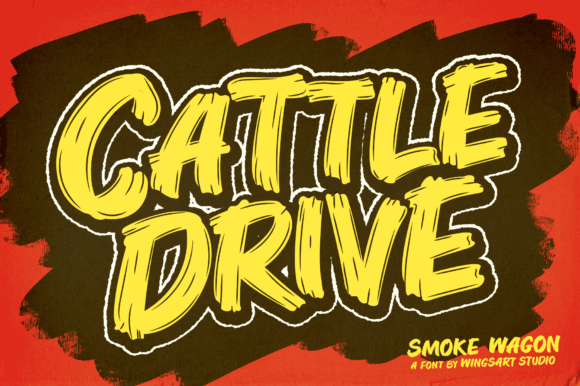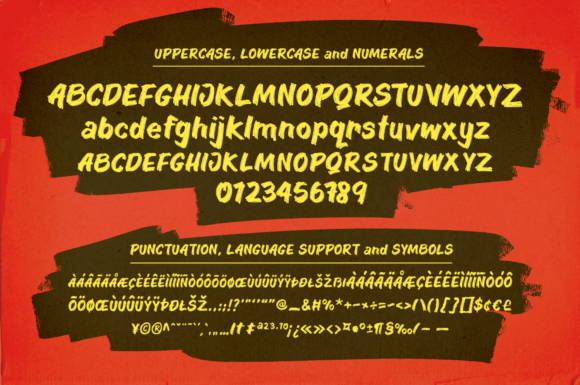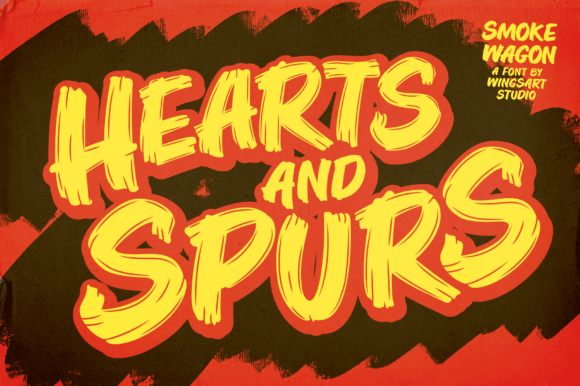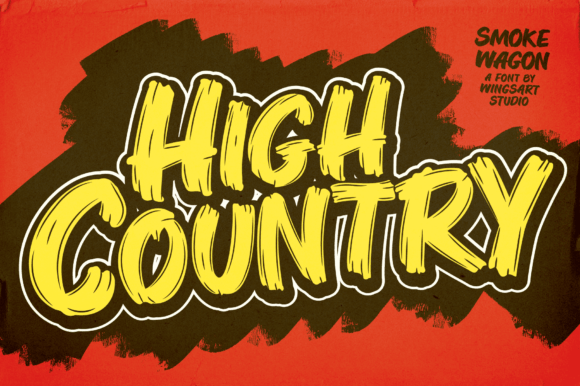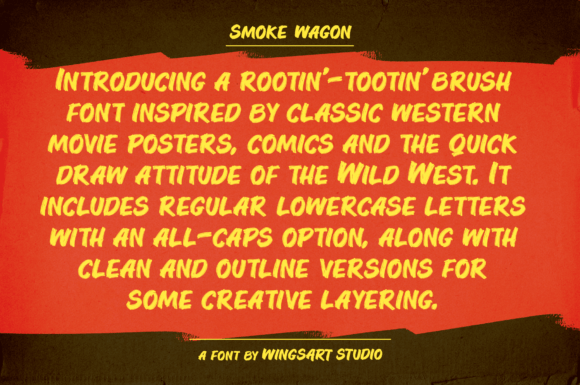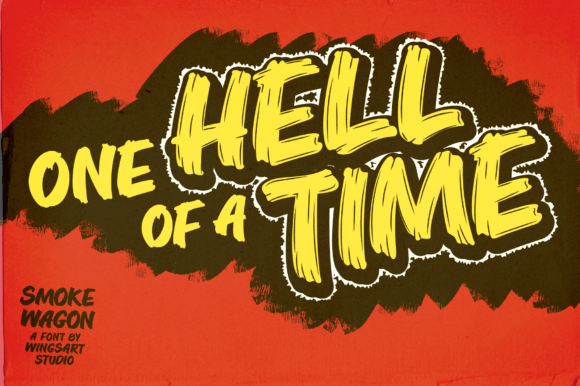
Introduction to Smoke Wagon Font
Introducing a rootin’-tootin’ brush font inspired by classic Western movie posters, comics, and the quick draw attitude of the Wild West.
It includes regular lowercase letters with an all-caps option, along with clean and outline versions for creative layering Smoke Wagon Regular offers a complete set of uppercase and lowercase characters, along with numerals, punctuation, symbols, and language support; plus the all-caps variant is ready and recommended for the most impactful title designs.
Key Features of Smoke Wagon Font